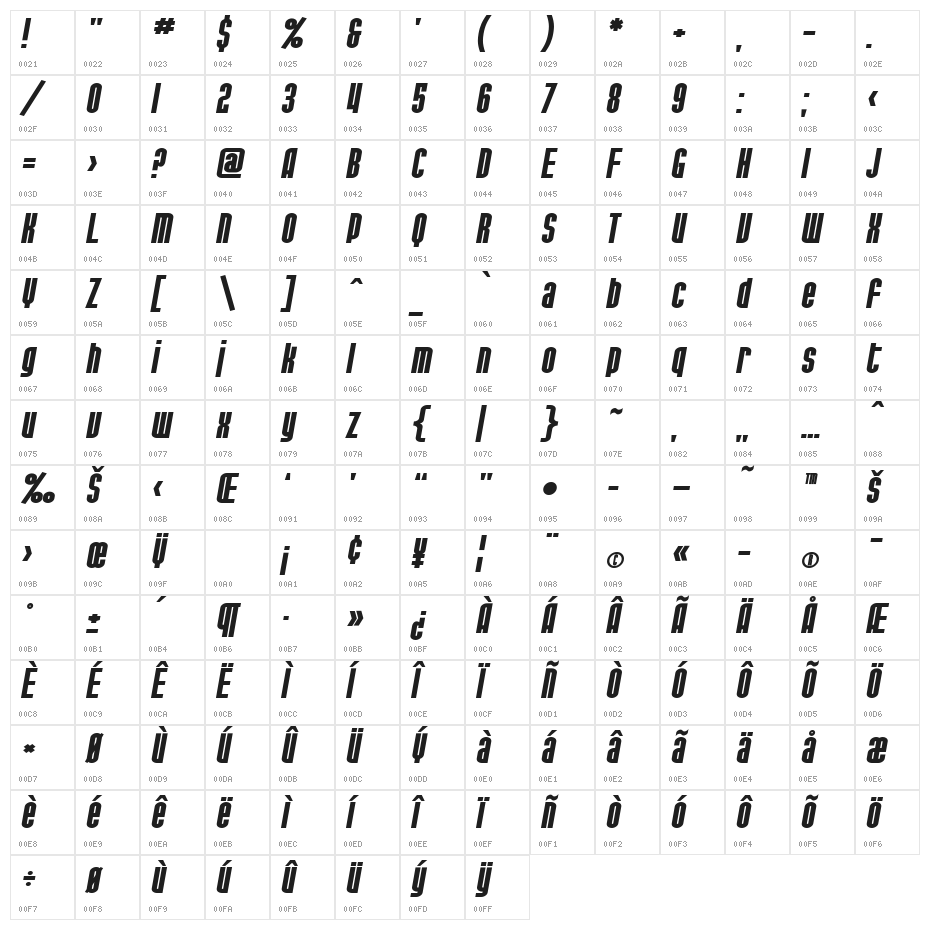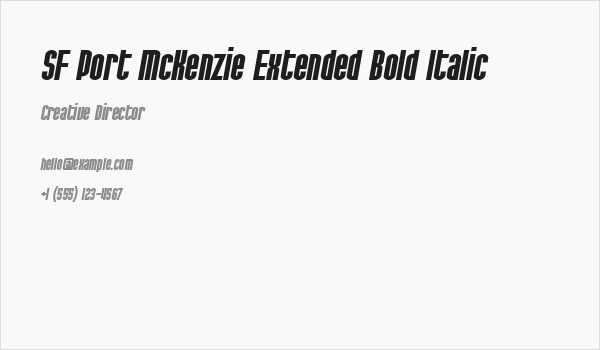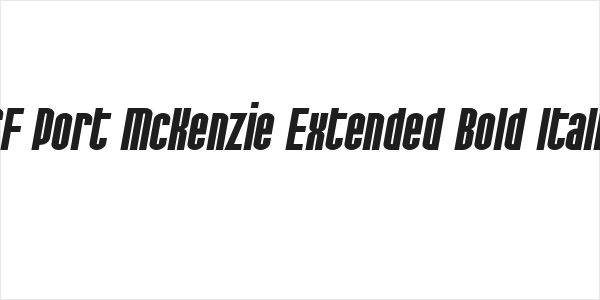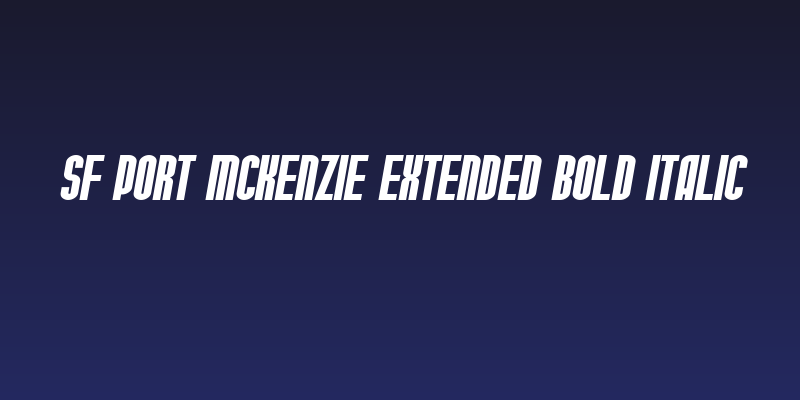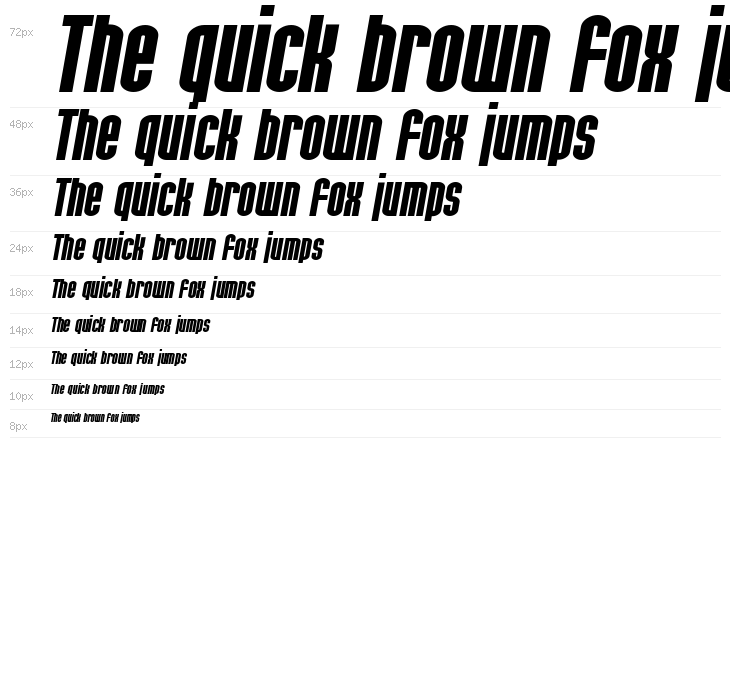
SF Port McKenzie Extended Bold Italic Font
SF Port McKenzie Extended Bold Italic Description
This font features a bold and italicized style with an extended width, giving it a strong and dynamic presence. The characters are tall and narrow, with a slight slant that adds a sense of motion and energy. The strokes are thick and consistent, providing a high contrast that enhances readability and impact. The overall design is modern and assertive, making it suitable for attention-grabbing headlines and statements. The uppercase and lowercase letters maintain a cohesive look, while the numerals and special characters complement the alphabet with their bold and angular forms.
| Proposed Projects | Ideal for sports branding, dynamic posters, modern advertising, and impactful headlines. |